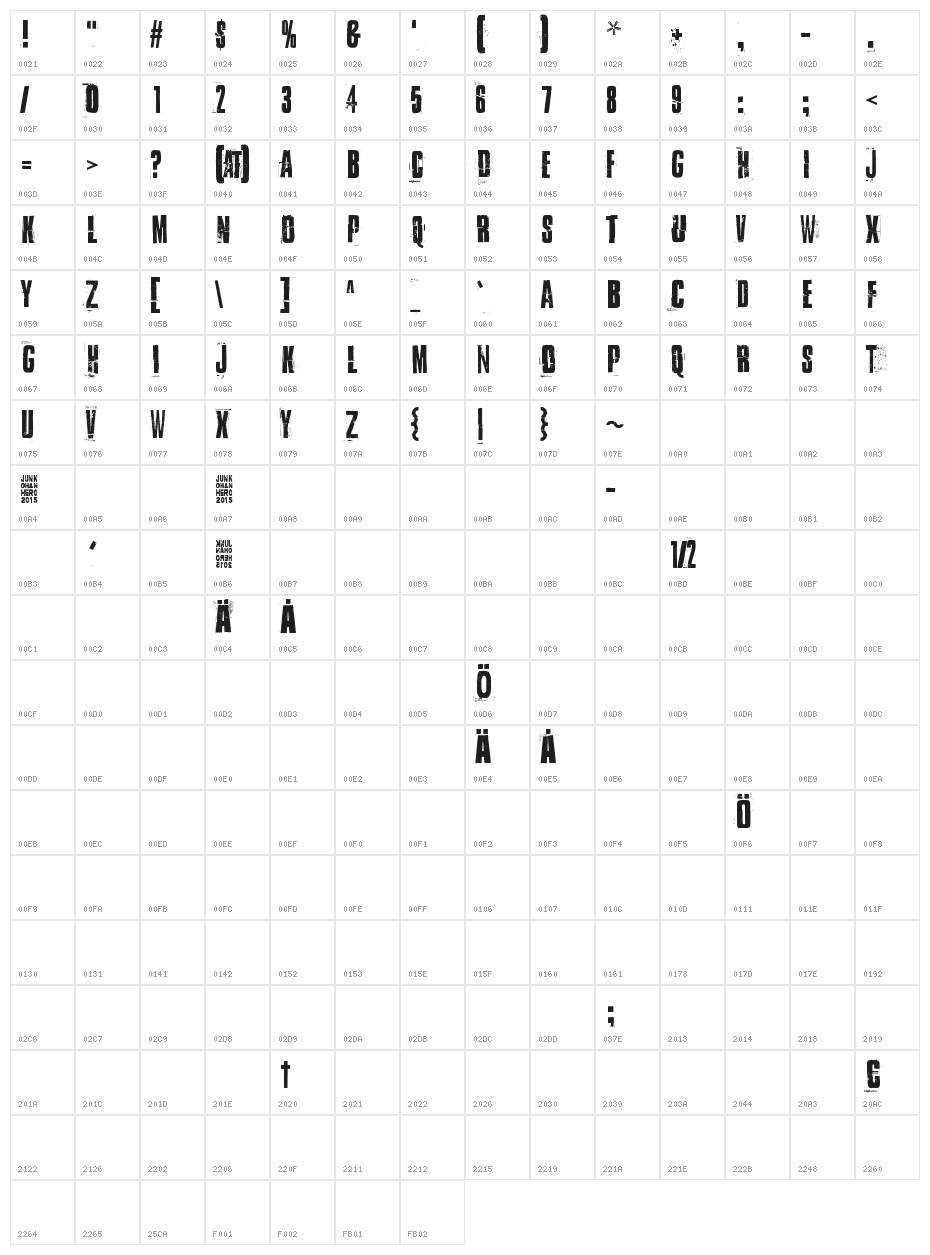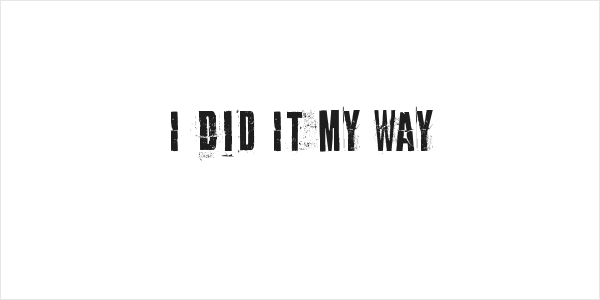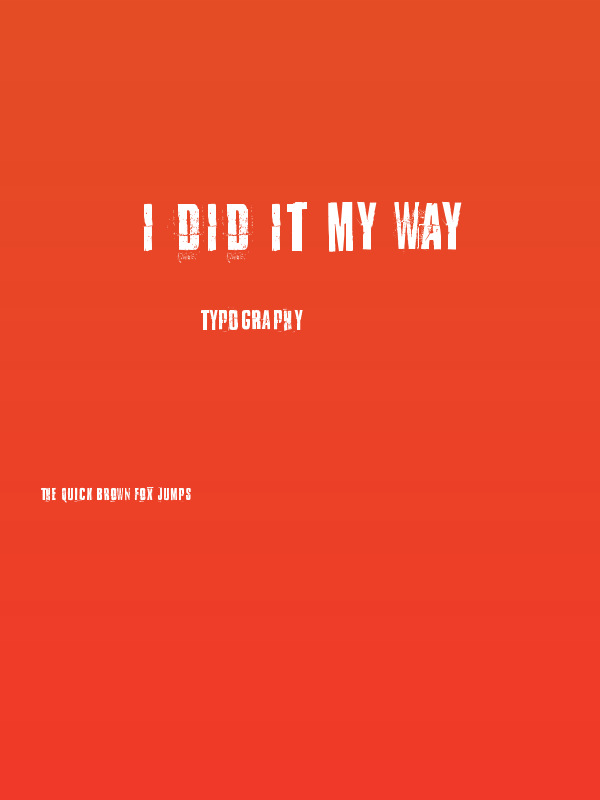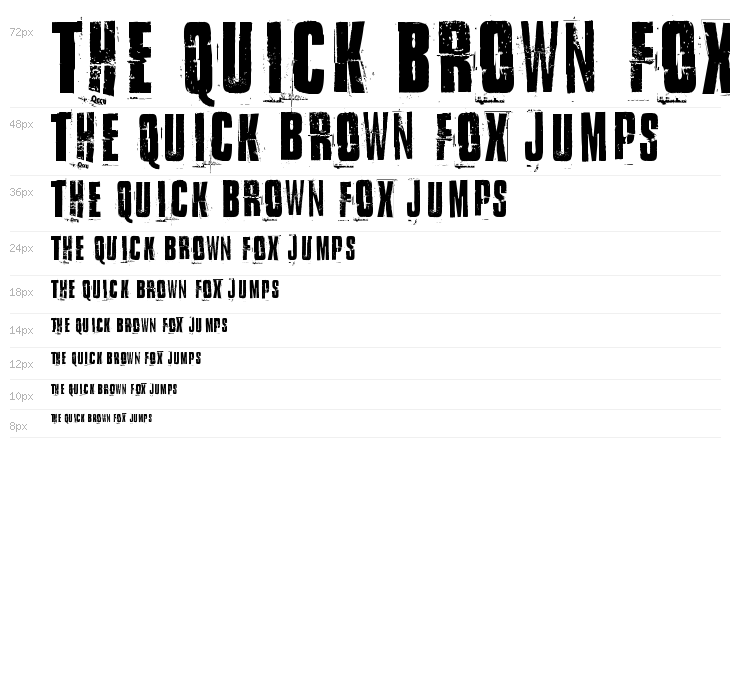
I Did It My Way Font
I Did It My Way Description
This font exhibits a bold, distressed style with a grunge aesthetic, characterized by its rough, textured appearance. The uppercase and lowercase letters, along with numbers and special characters, are designed with a worn, weathered look, giving it a vintage, industrial feel. The characters are bold and impactful, making them stand out with their unique, rugged charm. The font's uneven texture and irregular edges contribute to its raw, edgy appeal, suitable for projects that require a strong, rebellious statement.
| Overall Style | Vintage, Grunge |
| Proposed Projects | Ideal for music album covers, posters, branding for edgy or alternative products, and any design needing a bold, gritty look. |